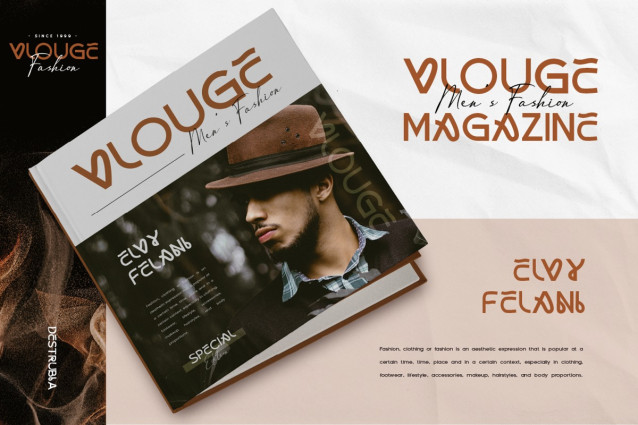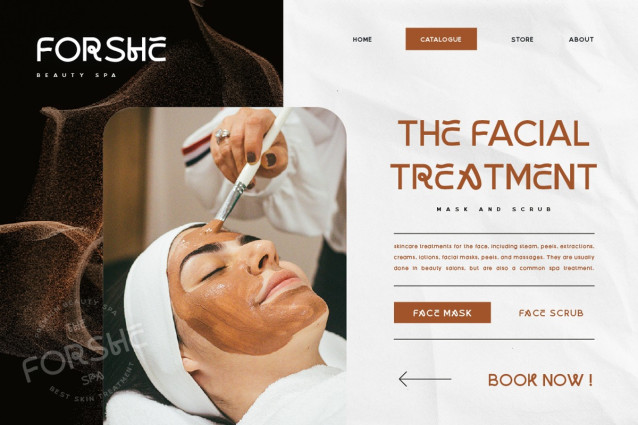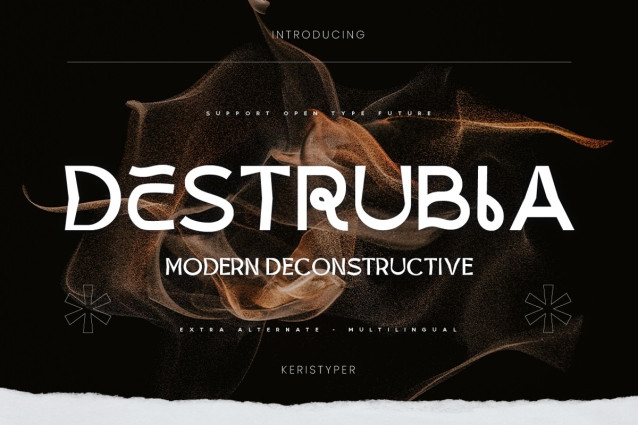
Destrubia Font
Destrubia font is designed based on the idea of a contemporary modern font, giving a unique impression thanks to its curved and distorted shapes. This font is suitable for logo design, social media, movie titles, book titles, short text even long text, and suitable for your secondary text font with script, sans or serif typeface.